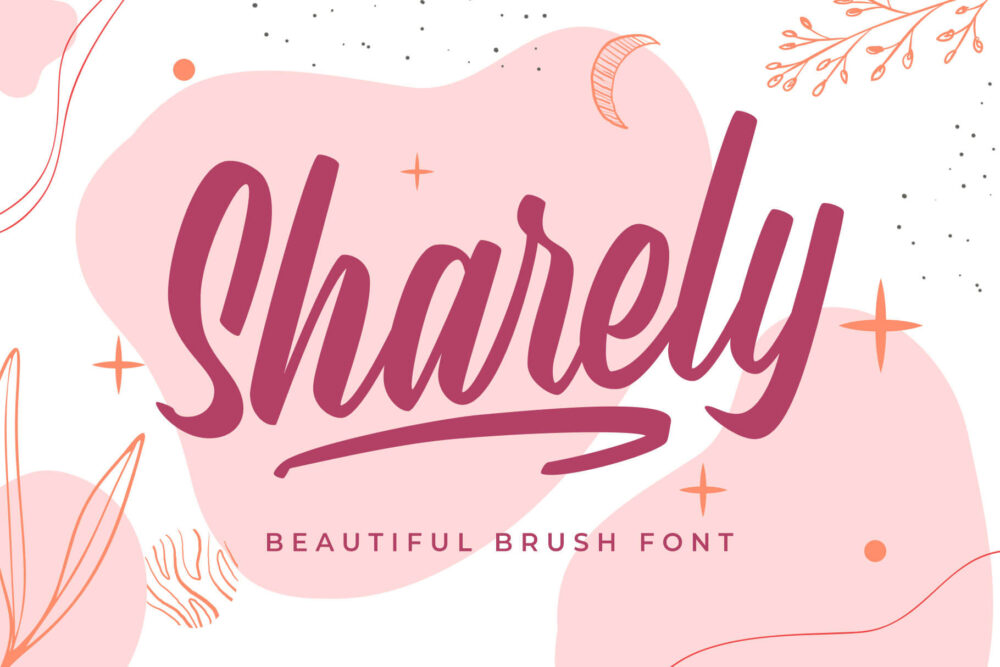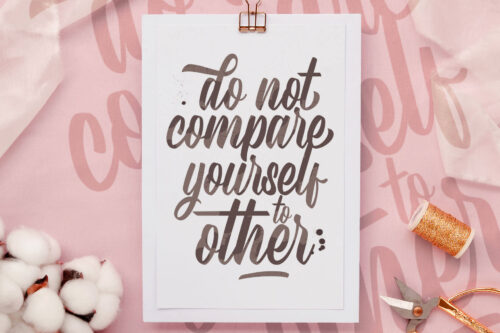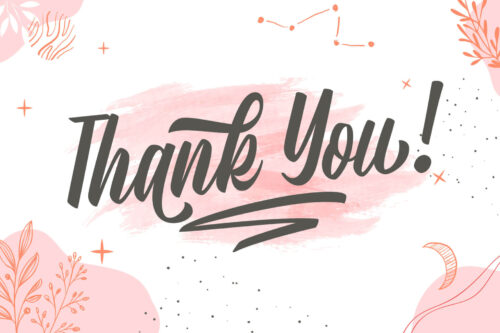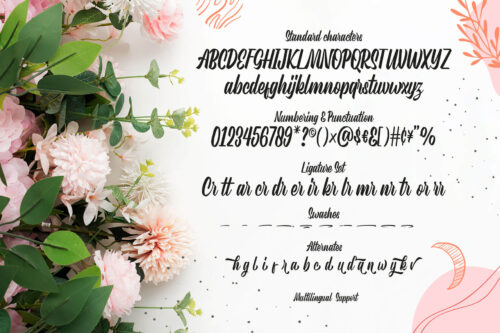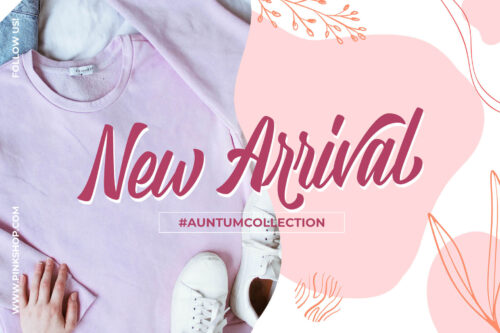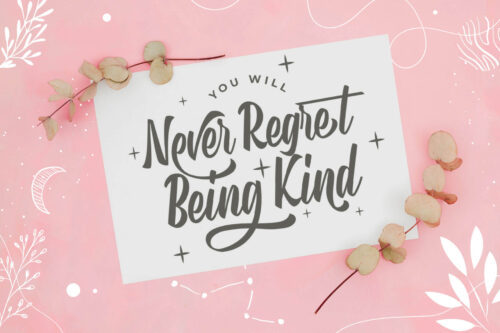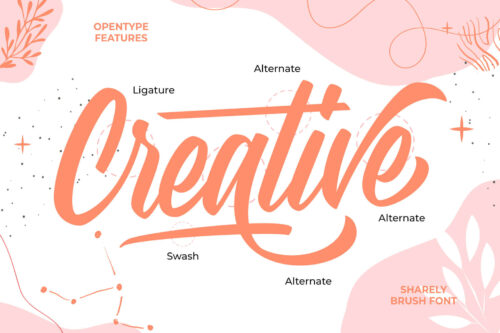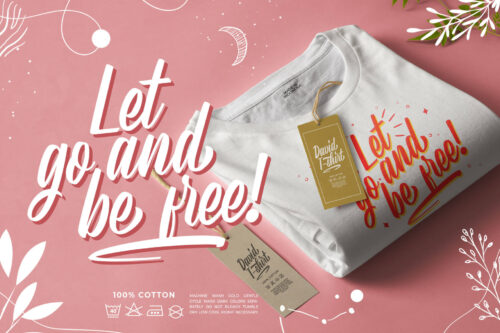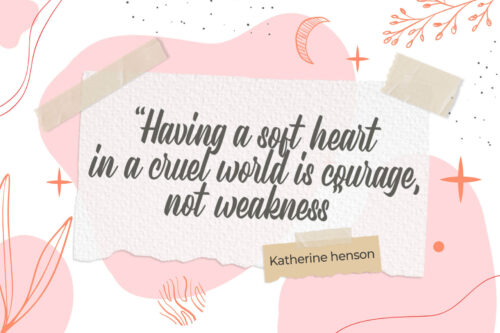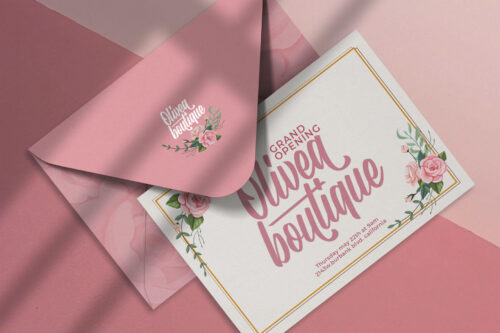
Sharely is a minimalist brush font, with a beautiful and feminine feel. Inspired by the girly style and modern-minimalist label that visualize naturality with the brush style. This font has a simple letterform either the uppercase or lowercase that emphasizes the minimalistic feel.
Sharely is designed in condensed shapes which perfect for the logotype, short quote, labels, display information, merchandise, t-shirt, poster, mug, and more. This brush font also complete with some OpenType features that you can mix and match to get the more playful brush style!
Fonts featured :
- Uppercase
- Lowercase
- Numbers
- Symbols & punctuation
- Stylistic alternates
- Ligatures
- Swashes (simply type ‘underscore’ and a number, eg: _1, _2, _3, etc)